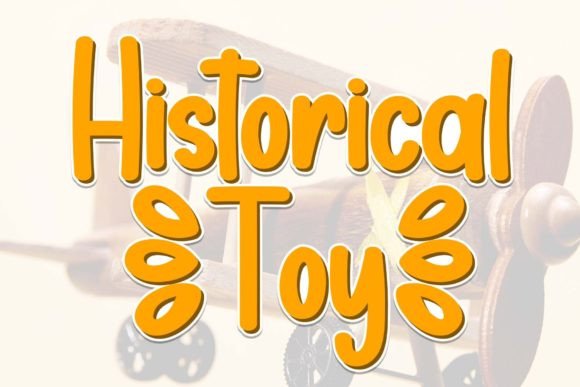
Introducing Historical Toy Font, the ultimate font for web design enthusiasts seeking a touch of elegance and charm! Crafted with passion by the talented andikastudio, this script font is a true masterpiece that will bring your creations to life.
Historical Toy Font is more than just a font - it's a creative tool that allows you to unleash your imagination and explore endless possibilities. Its sweet and friendly handwritten style adds a personal and authentic touch to any project, making it perfect for everything from logos and branding to invitations and social media graphics.
Embrace the uniqueness of Historical Toy Font and let it transport your designs to a world of beauty and sophistication. Its natural strokes and distinct characters capture the essence of handwritten artistry, making each word feel like an intimate conversation with your audience.
With Historical Toy Font, you have the power to create captivating web designs that leave a lasting impression. Stand out from the crowd with its eye-catching appeal and make your content truly memorable. Whether you're a professional designer or a passionate hobbyist, this font is your secret weapon to captivating your audience and turning heads.
But that's not all - Historical Toy Font is designed with your convenience in mind. Its versatility allows it to seamlessly adapt to any project, ensuring a smooth and effortless workflow. From large-scale banners to small-scale web graphics, this font effortlessly scales to fit your needs, saving you time and effort.
Don't settle for ordinary when you can have extraordinary. Elevate your designs with Historical Toy Font and elevate your brand's identity. From playful and whimsical to elegant and sophisticated, this font is your key to unlocking a world of creativity.